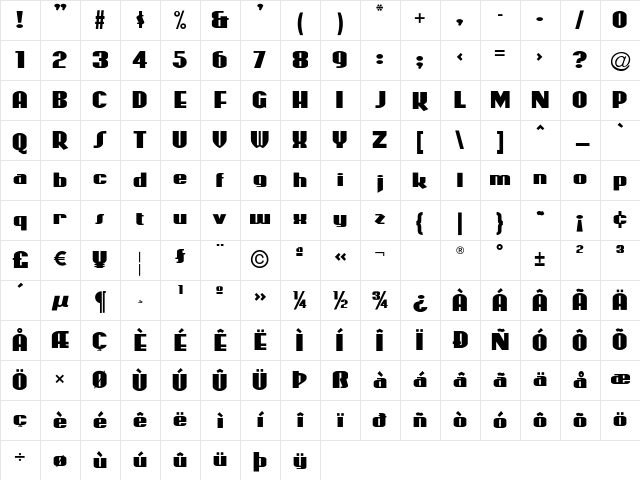
CoasterPoster Regular Free Font
CoasterPoster Regular
Design Context for CoasterPoster
CoasterPoster is a composed and adaptable typeface that performs quietly and consistently across a wide range of design contexts.